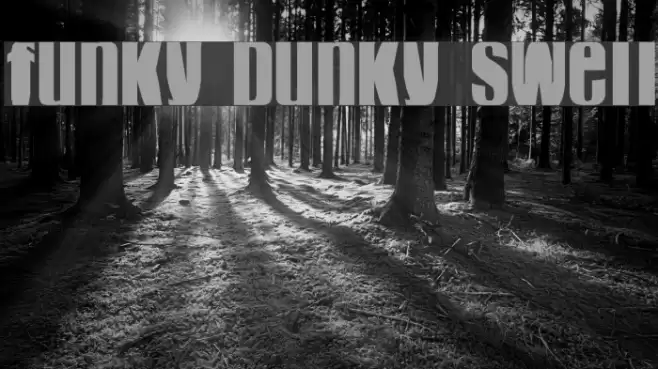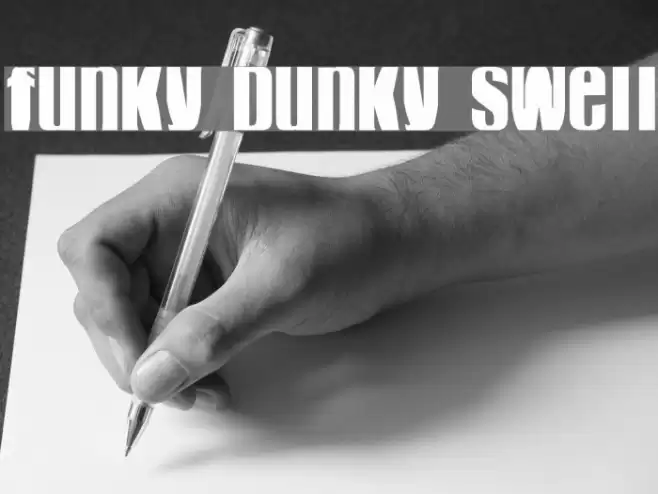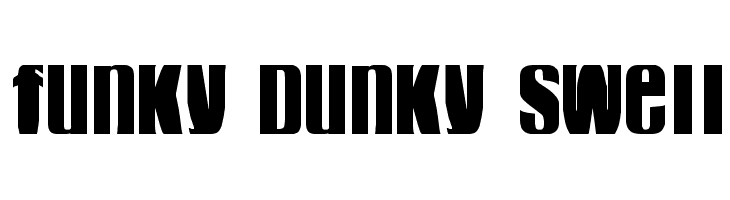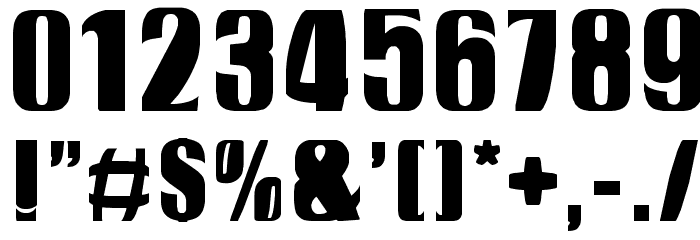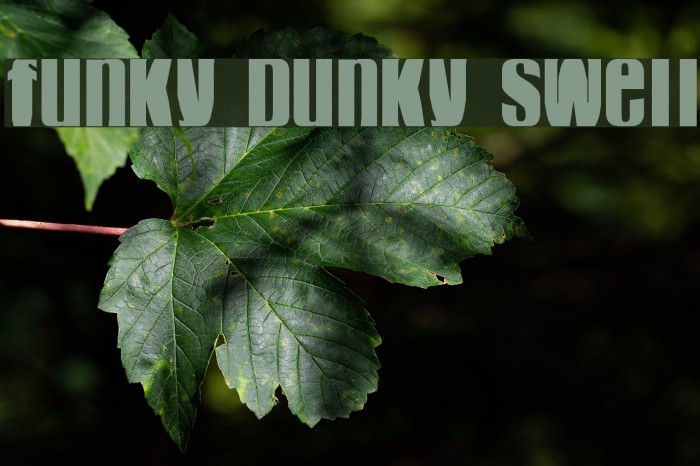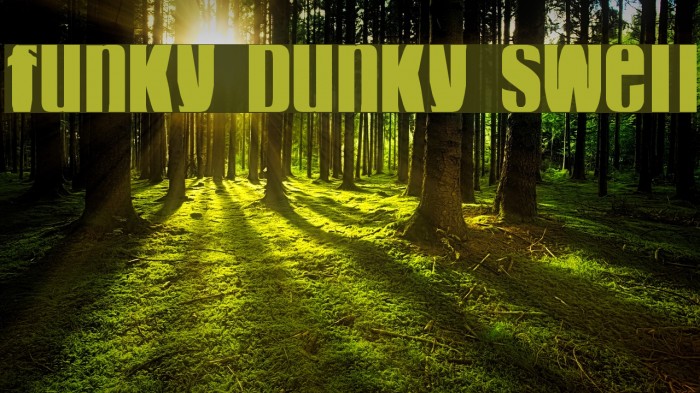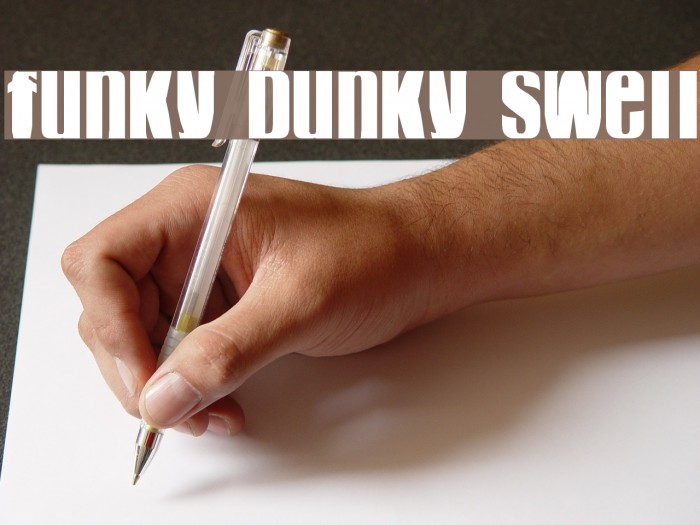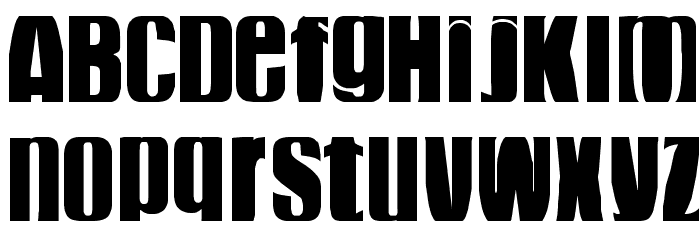
funky dunky swell Font
funky dunky swell Description
This bold and dynamic font features a striking, high-contrast design with thick, blocky characters that convey a sense of strength and impact. The uppercase and lowercase letters are crafted with a unique flair, incorporating subtle curves and angles that add a touch of playfulness to the overall appearance. The numbers and special characters maintain the same boldness, ensuring consistency across all elements. This font's distinctive style makes it ideal for projects that require a strong visual presence, such as posters, headlines, and branding materials.
A bold, high-contrast font with blocky, dynamic characters from Uncategorized fonts.
- Proposed Projects: Ideal for posters, headlines, branding, and any project requiring a strong visual impact.